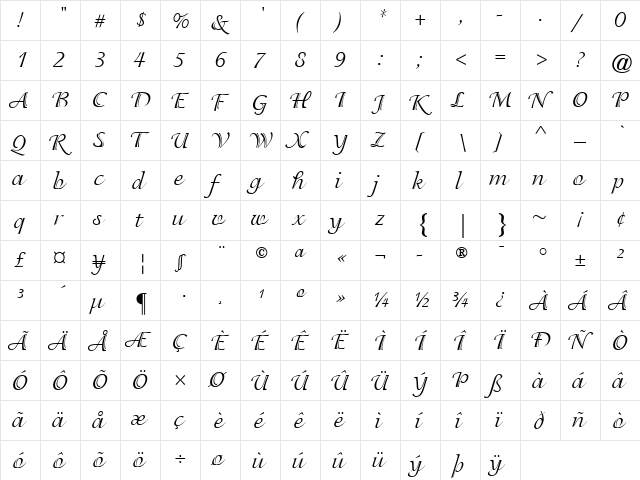
Isadora LT Regular Regular
| Foundry | Linotype Library GmbH |
Design Context for Isadora LT Regular Typeface
Isadora LT Regular takes a measured approach to typography — its balanced proportions and neutral character make it a reliable workhorse for both digital and print work. The delicate stroke weight brings airiness and refinement to layouts.